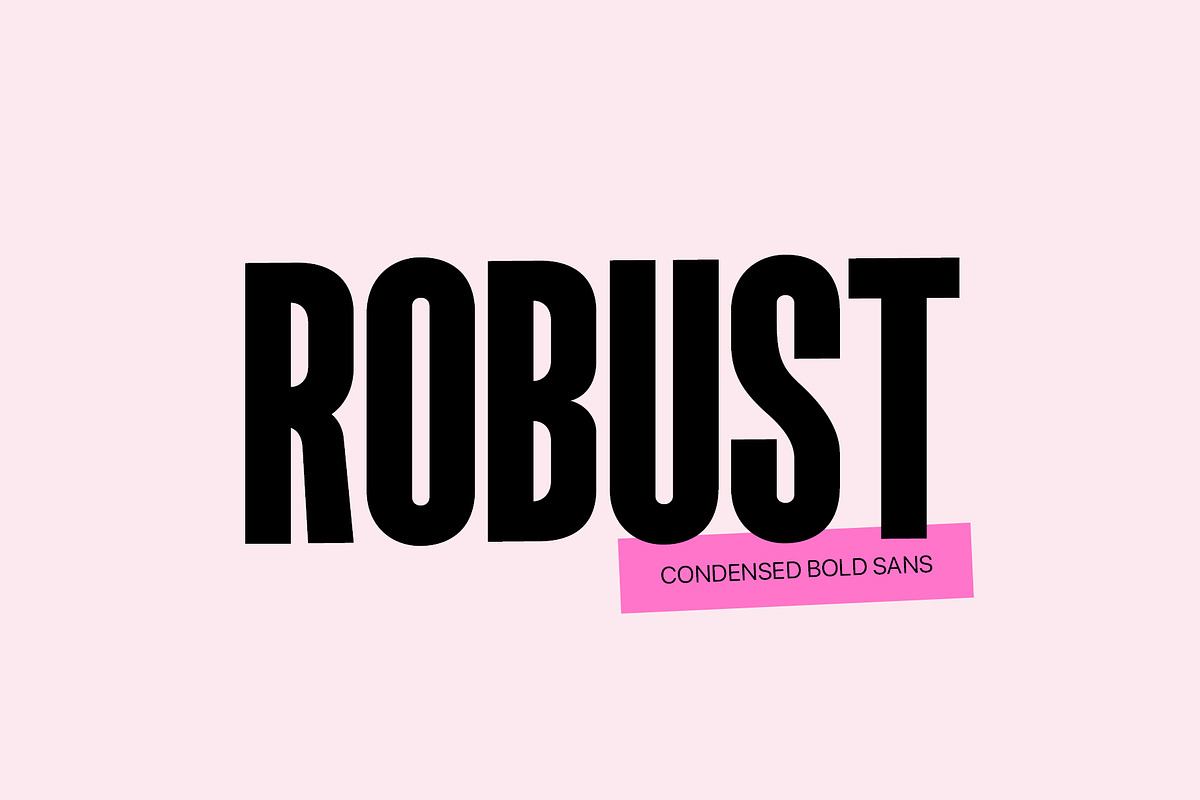
The Robust Bold Condensed Sans Font Free Download is a powerful, condensed sans-serif typeface designed for maximum impact. Perfect for headlines, logos, posters, branding, and any design that needs bold, attention-grabbing typography, this font features thick, strong strokes and tight letter spacing, making it ideal for projects that demand a high level of visibility.
With its modern and geometric design, Robust Bold Condensed offers excellent readability while maintaining a striking, powerful presence. It includes uppercase and lowercase letters, numbers, punctuation, and multilingual support, ensuring versatility for both print and digital applications.